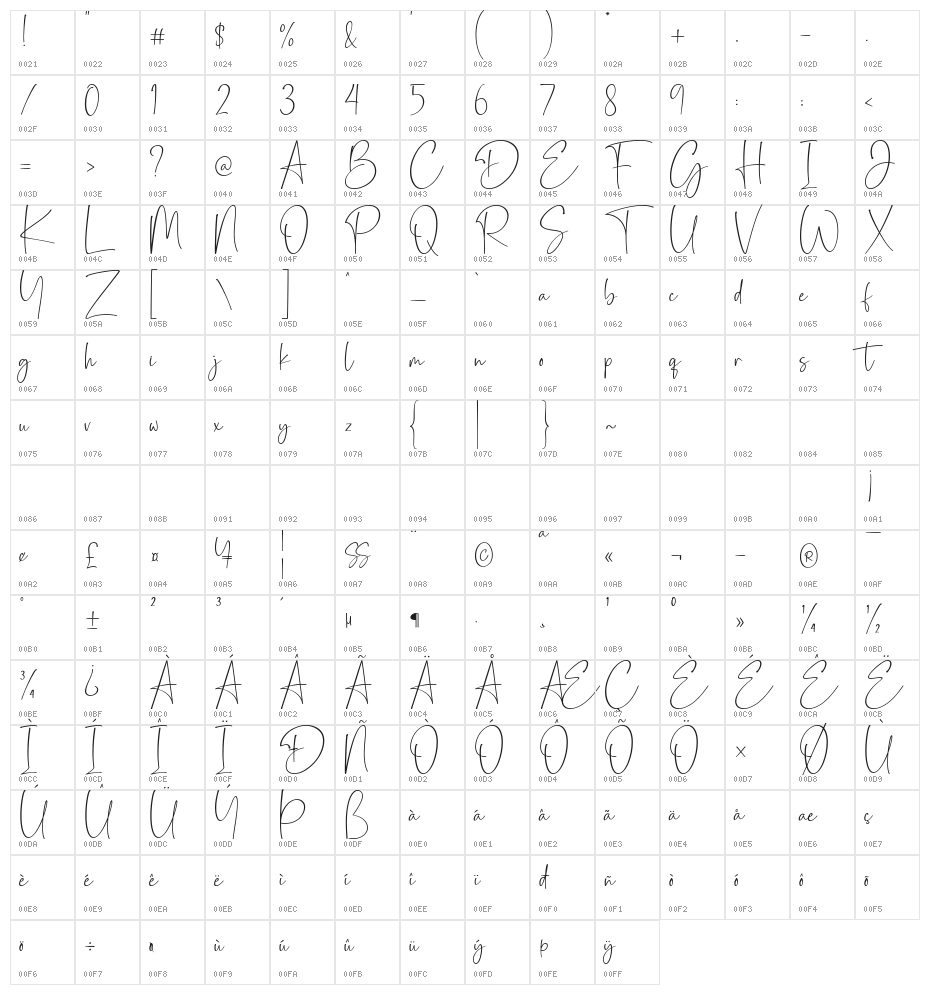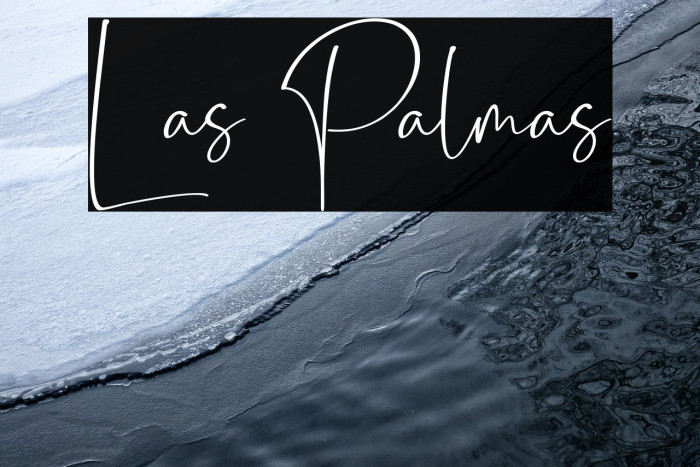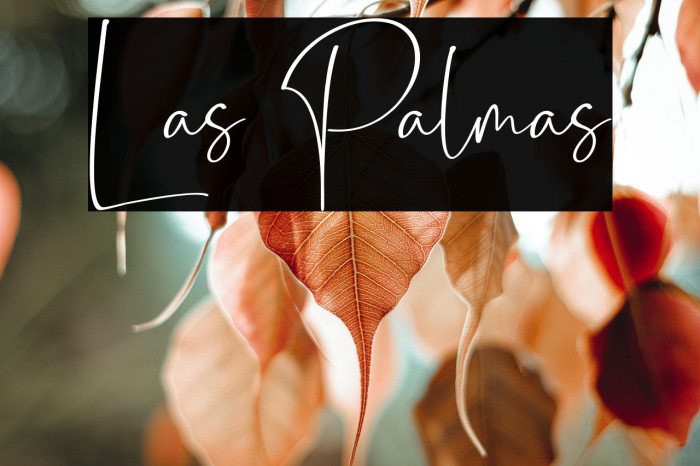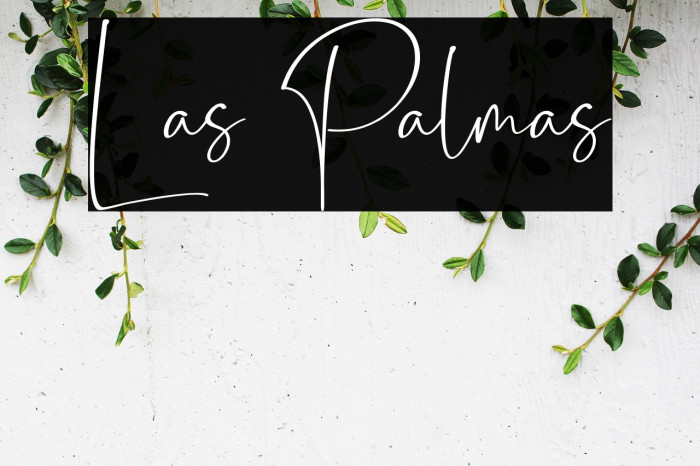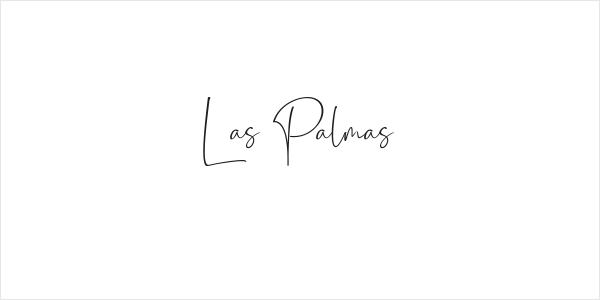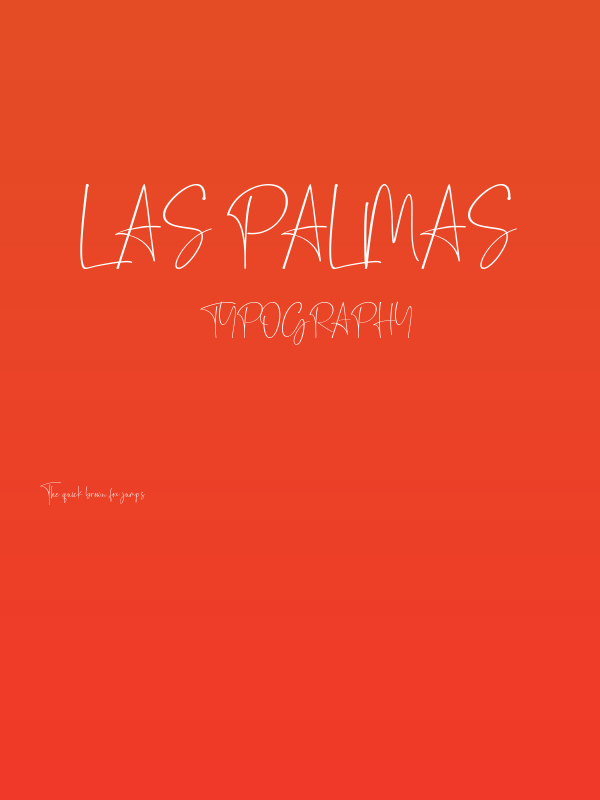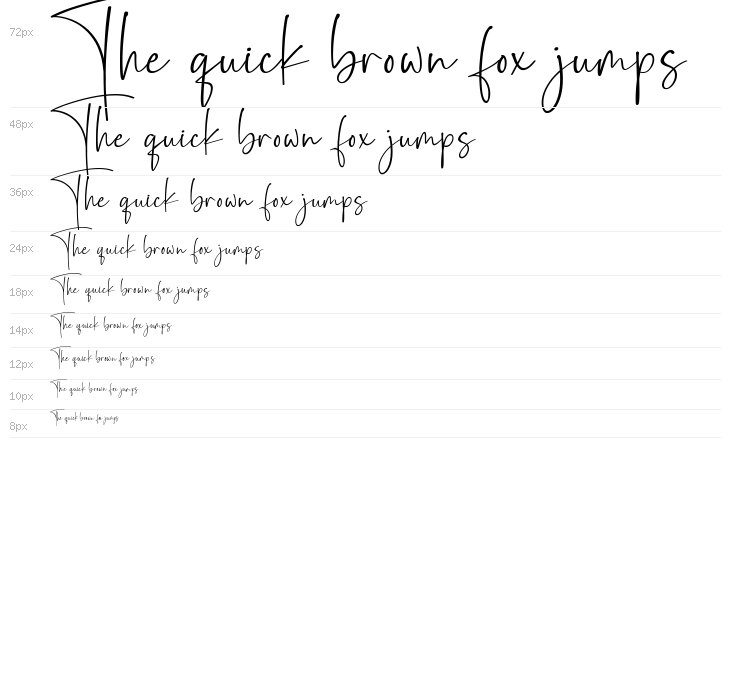
Las Palmas Font
Las Palmas Description
This font features a playful and elegant handwritten style, characterized by its fluid and dynamic strokes. The uppercase letters are tall and slightly narrow, with a whimsical flair that adds a touch of personality. The lowercase letters maintain a consistent flow, enhancing readability while retaining a casual charm. Numbers and special characters are crafted with the same attention to detail, ensuring a cohesive look across all text. The overall design is both modern and approachable, making it suitable for a variety of creative projects.